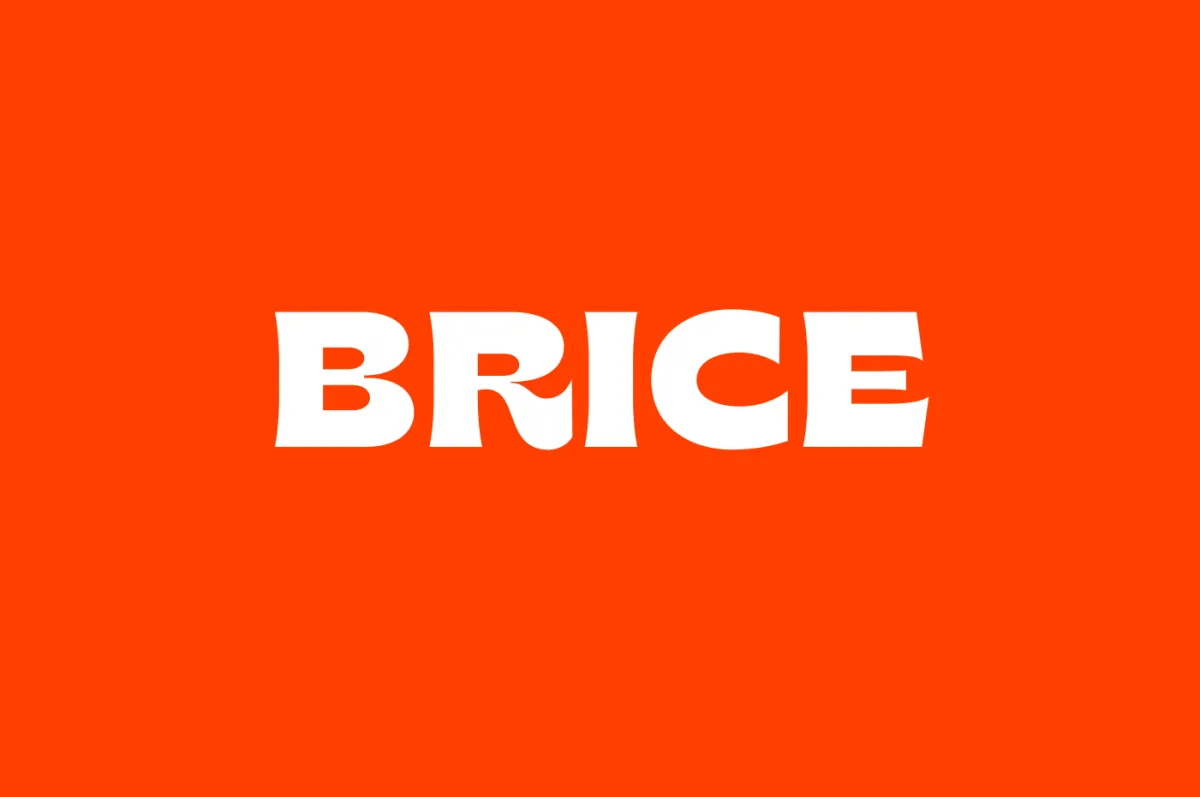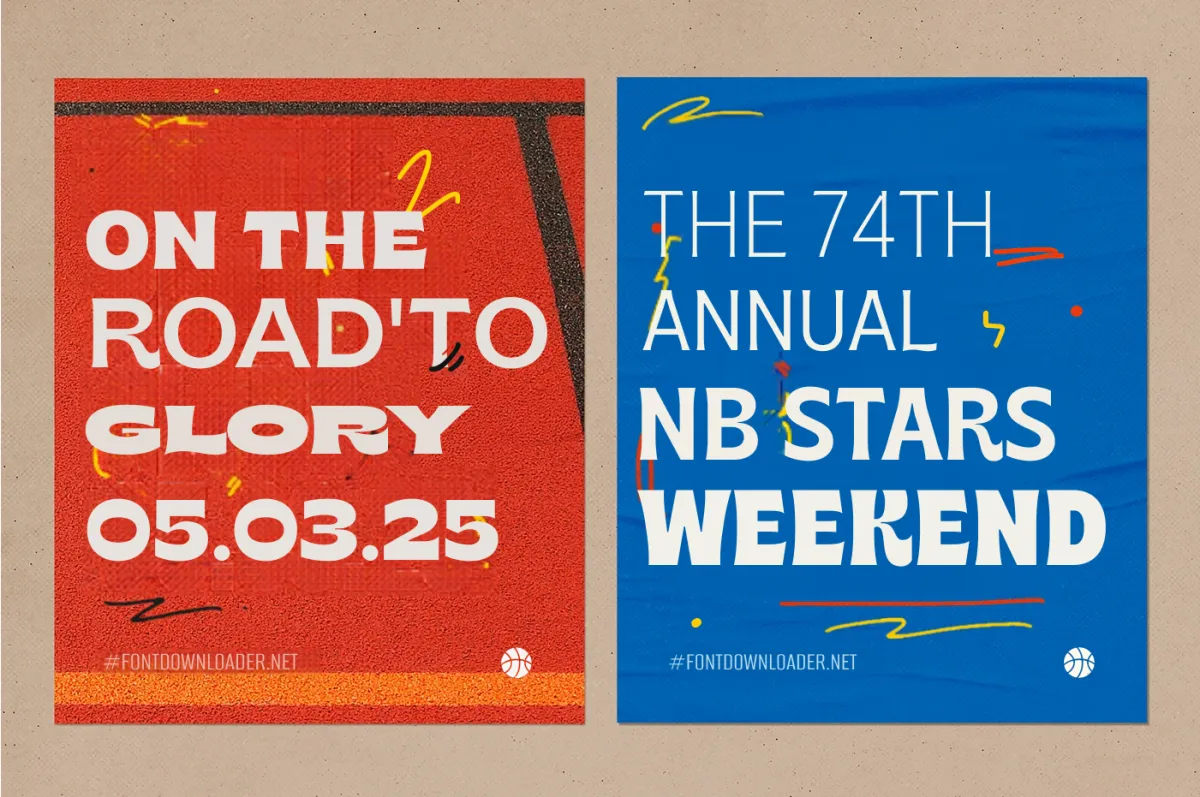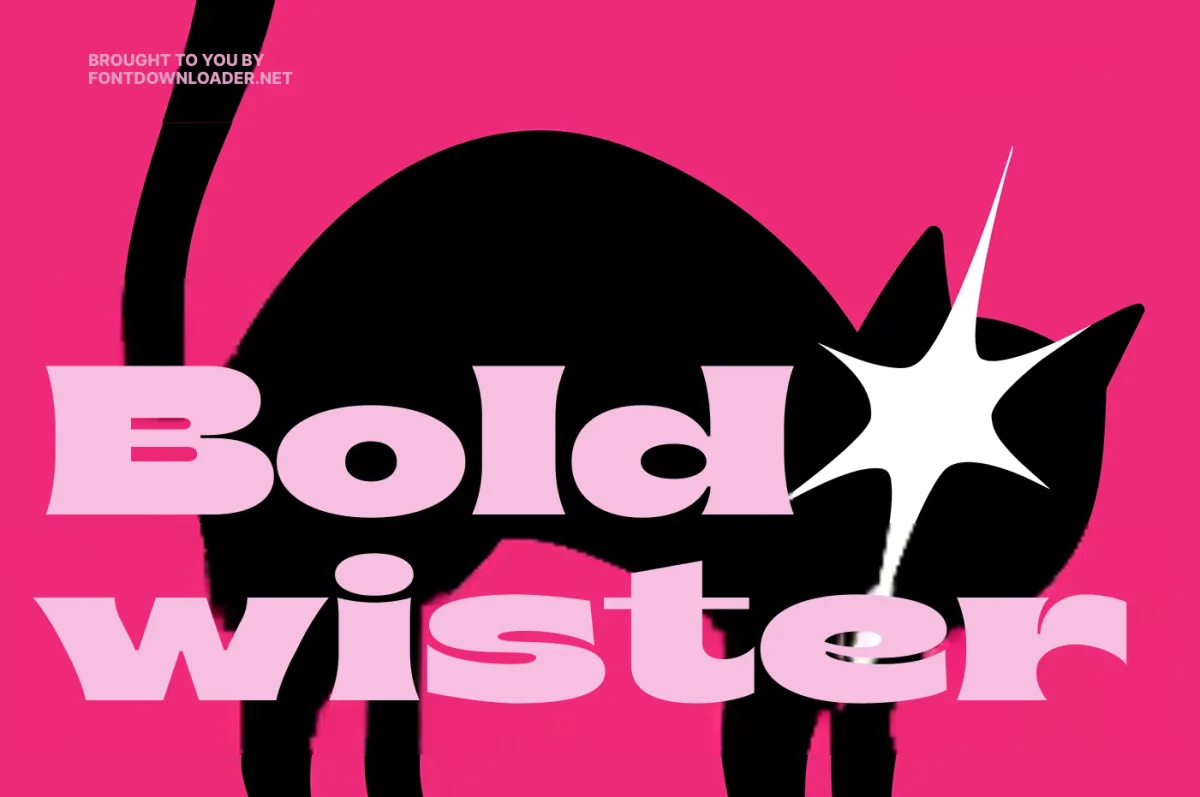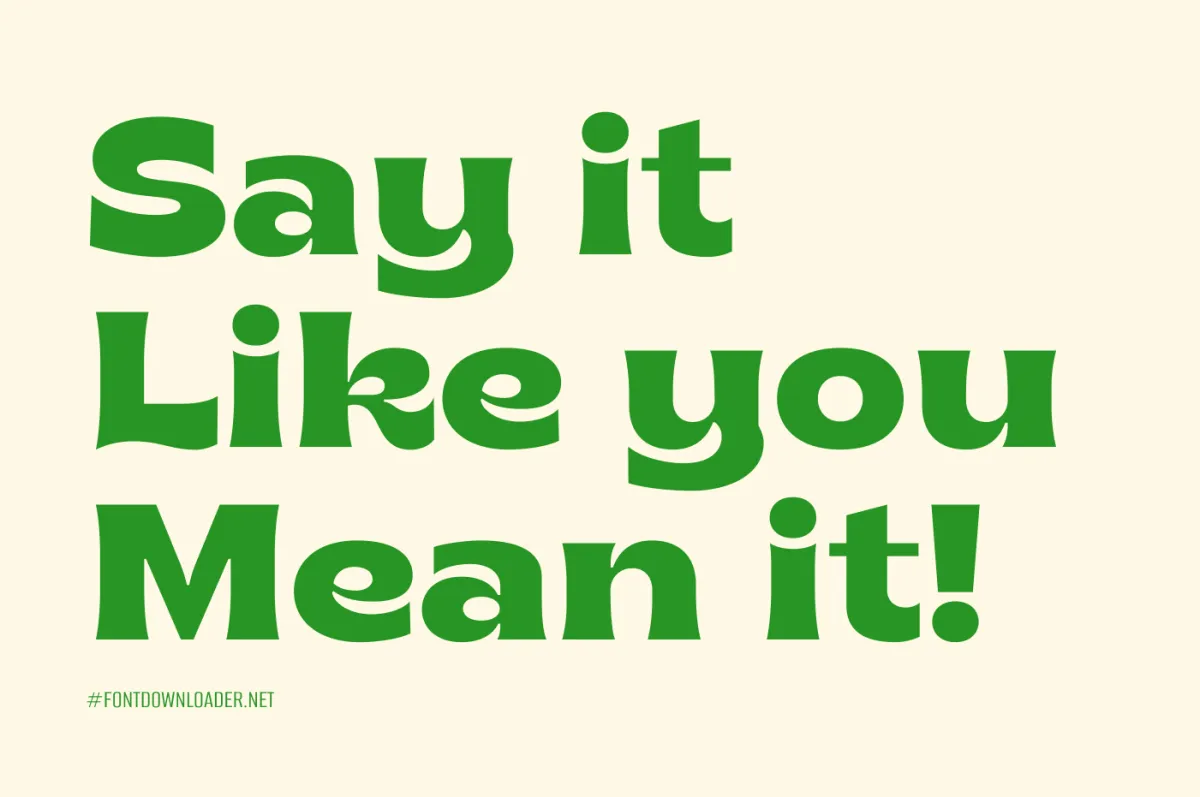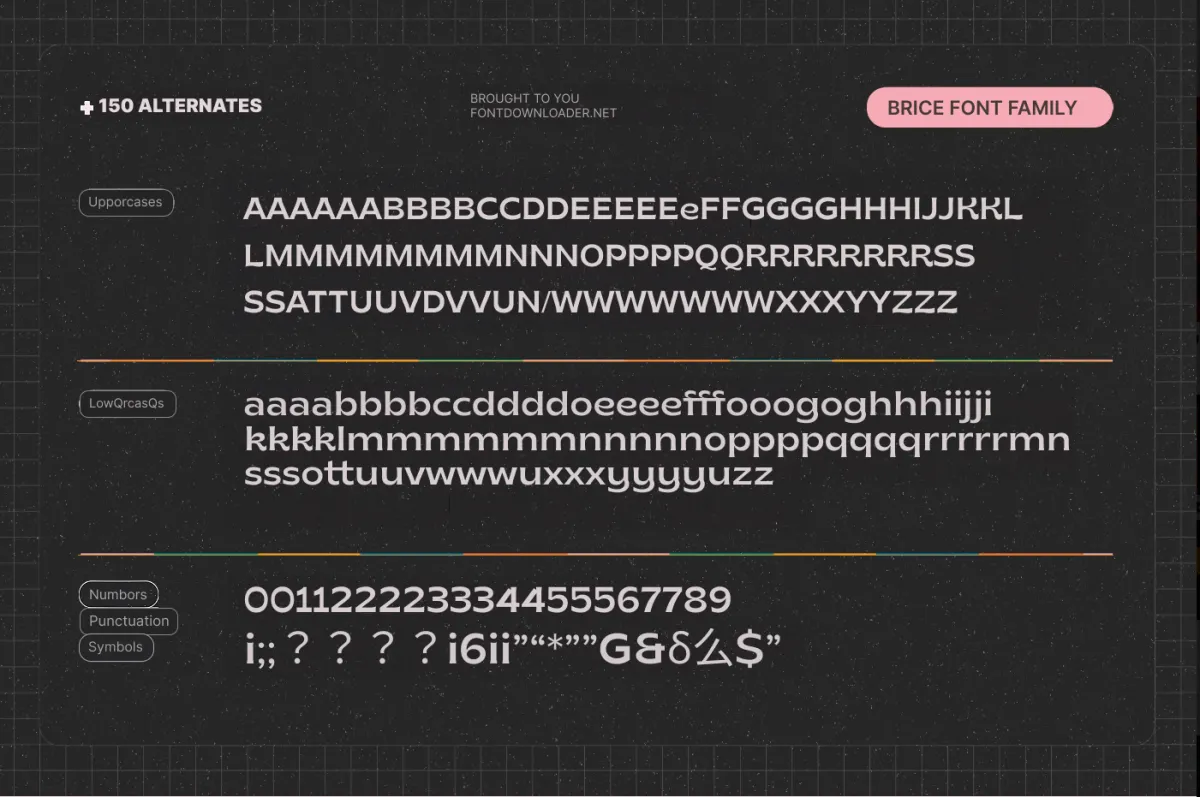
Brice Font
Brice Font by Studio Sun Foundry draws from 1980s pop culture—the music, art, literature, fashion, dance, and film that defined mainstream consumption. The typeface has small, bouncy serifs with dynamic contrast. Brice suits logotypes, captions, and headers.
The family offers 5 widths: Condensed, SemiCondensed, Normal, SemiExpanded, and Expanded. Six weights run through each width—ExtraLight, Light, Normal, SemiBold, Bold, and Black. Support extends to more than 75 languages.FEF9E4